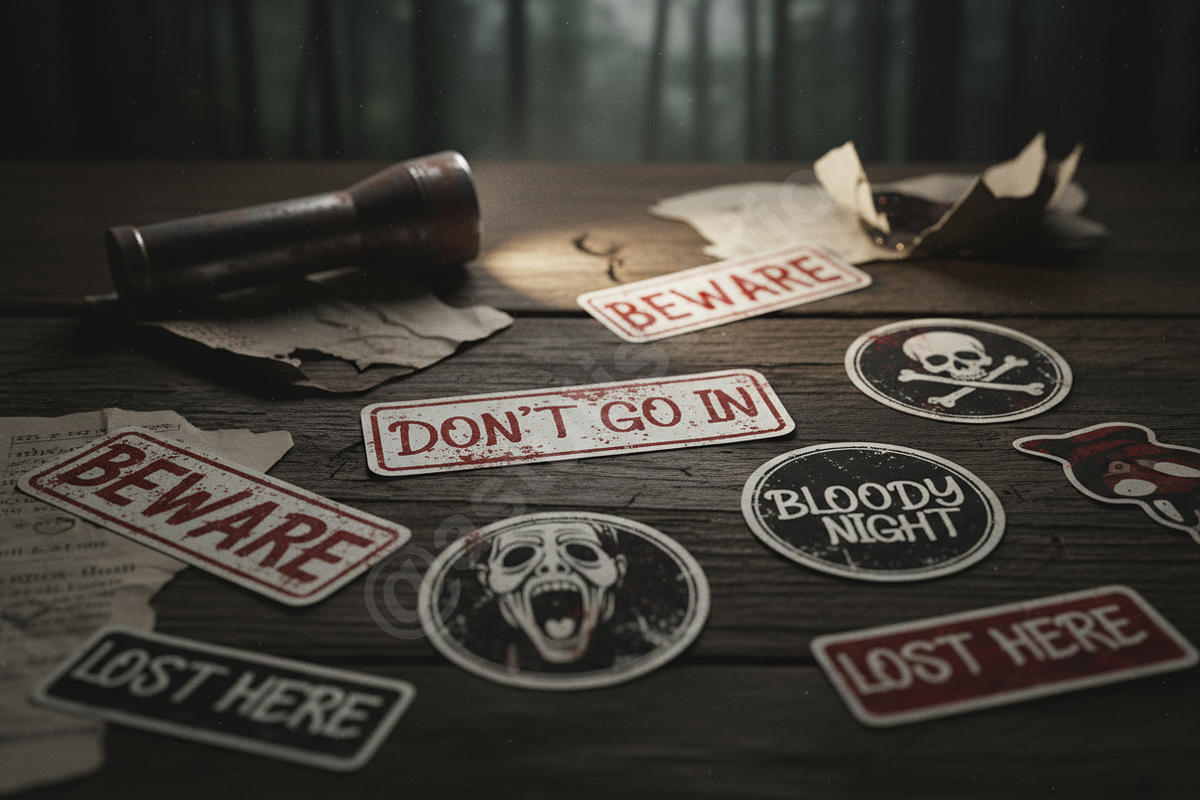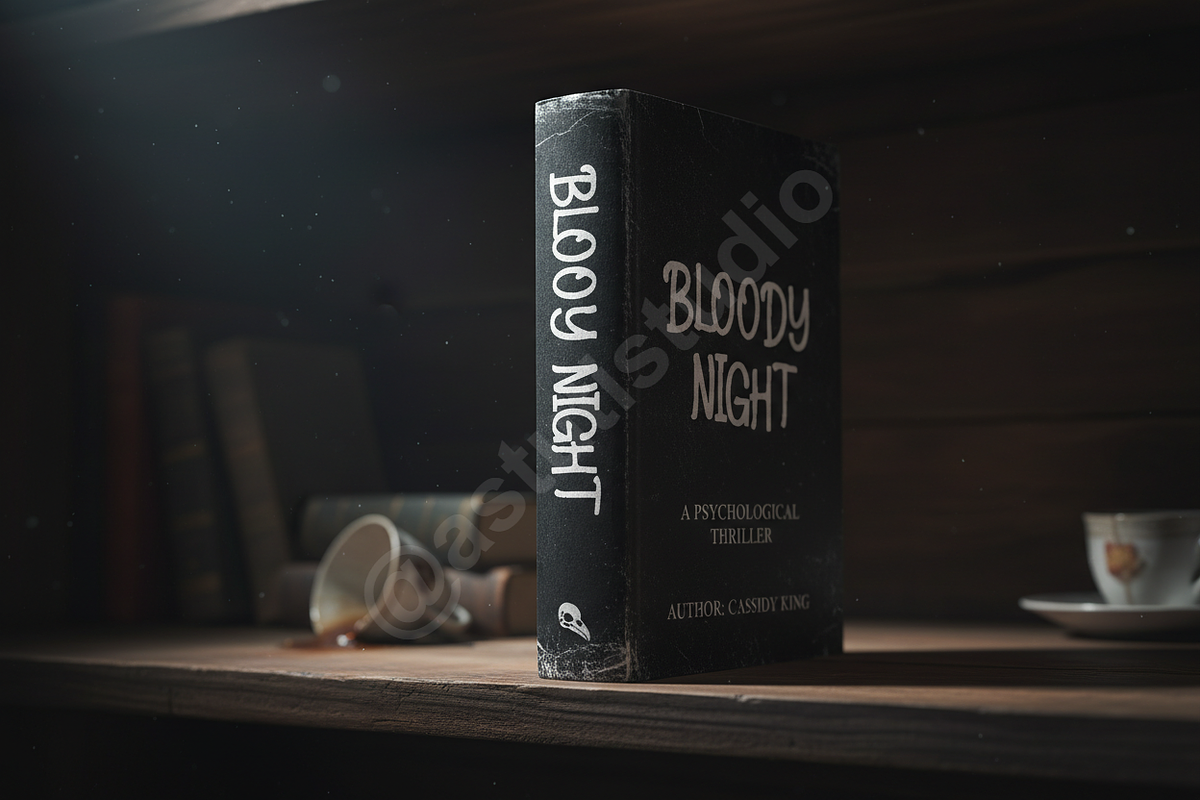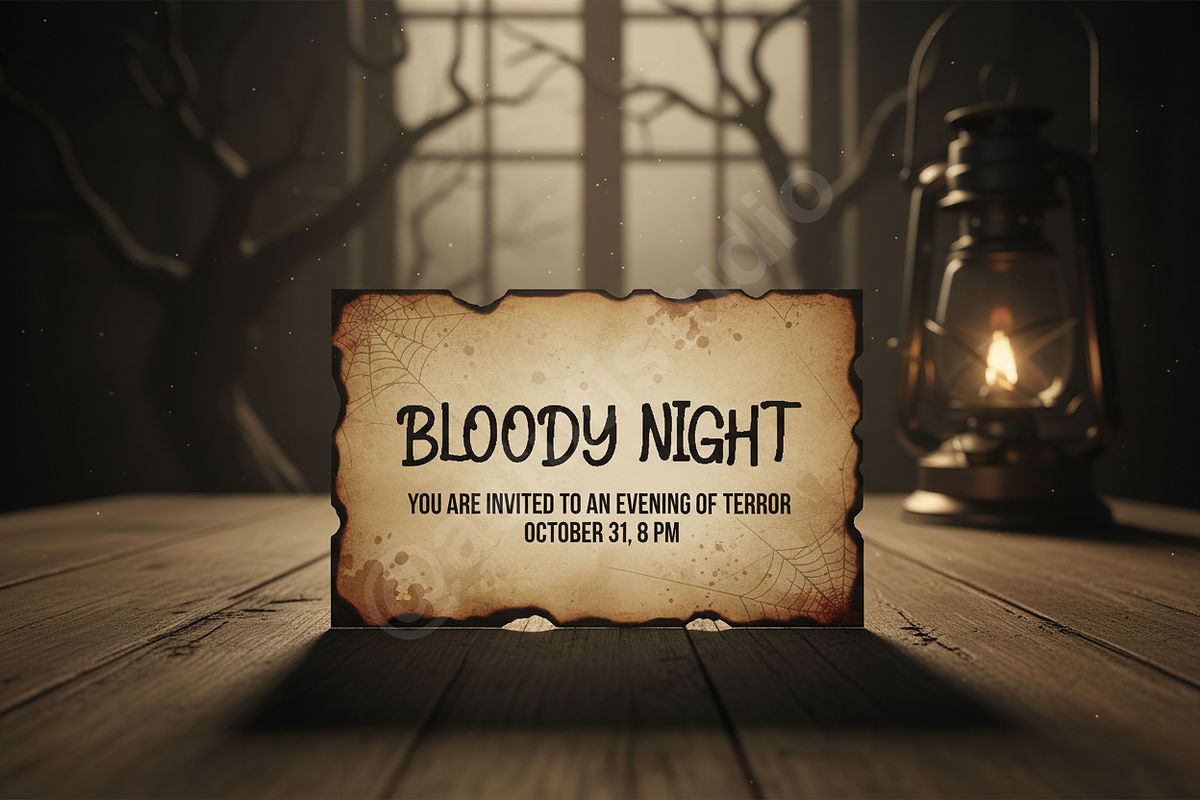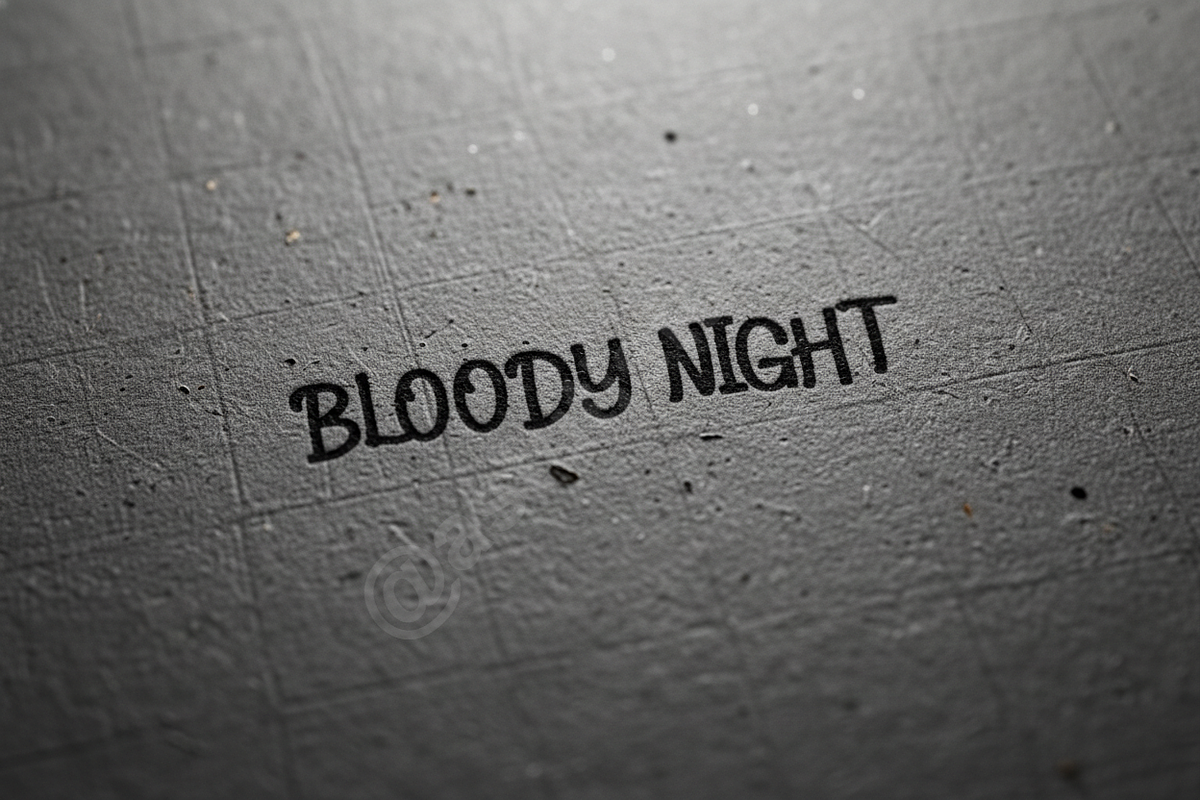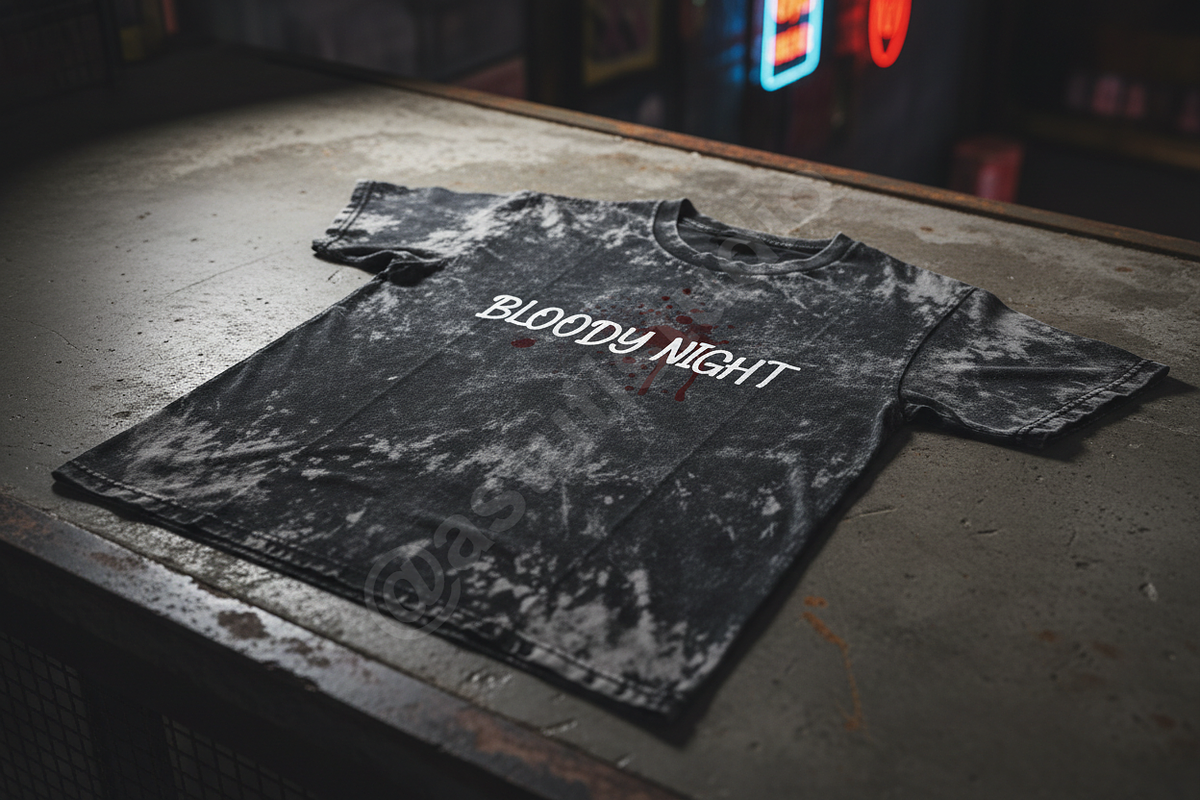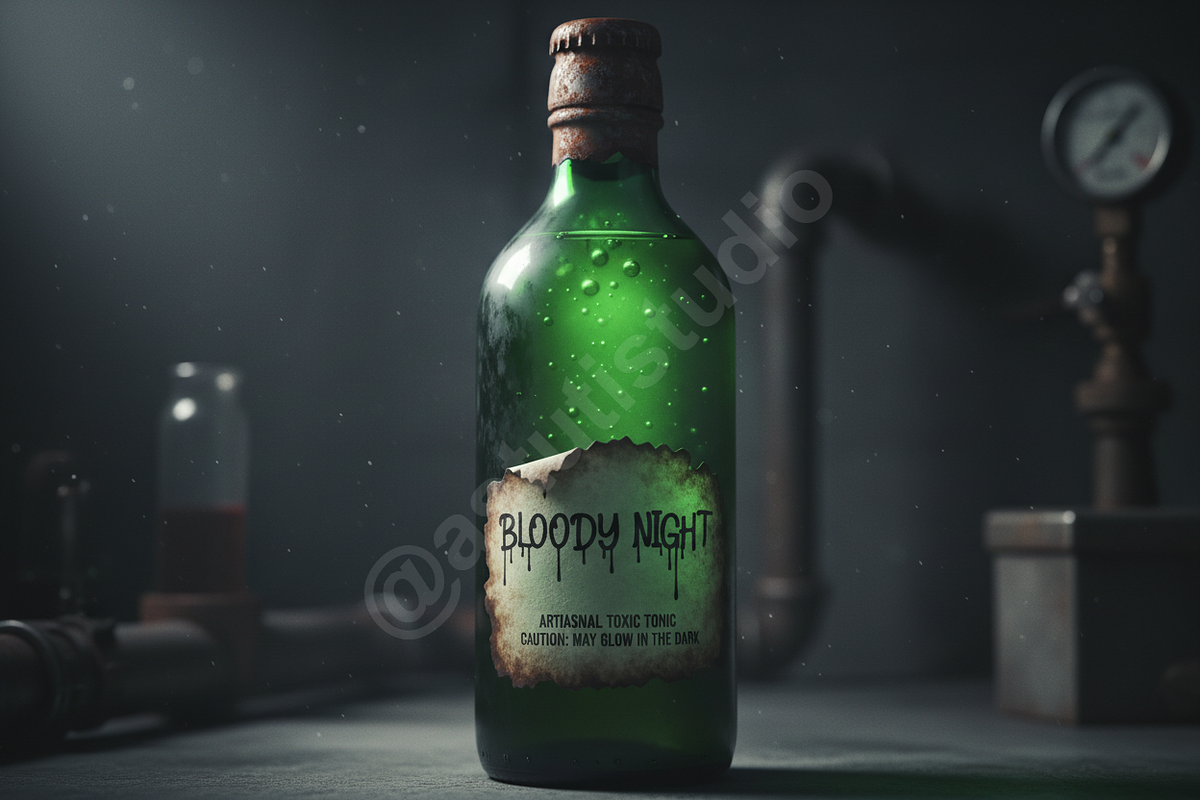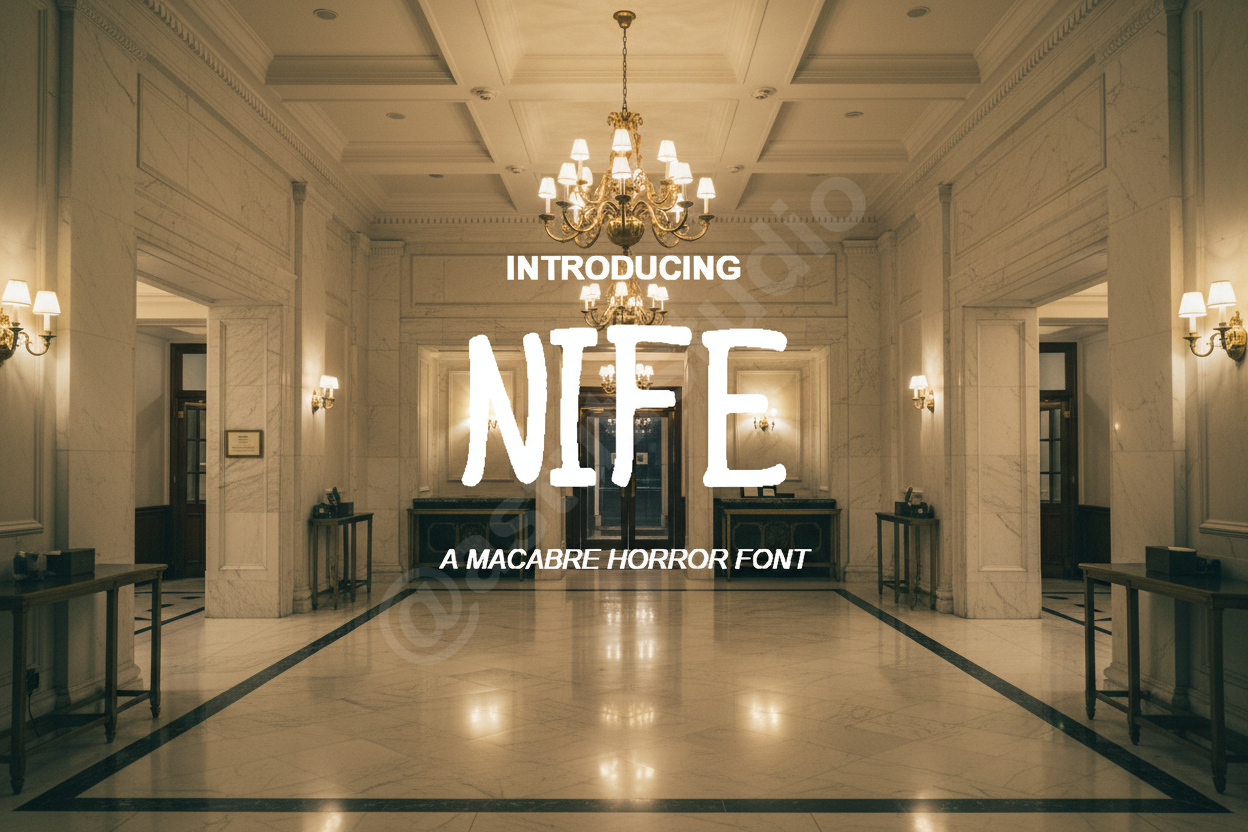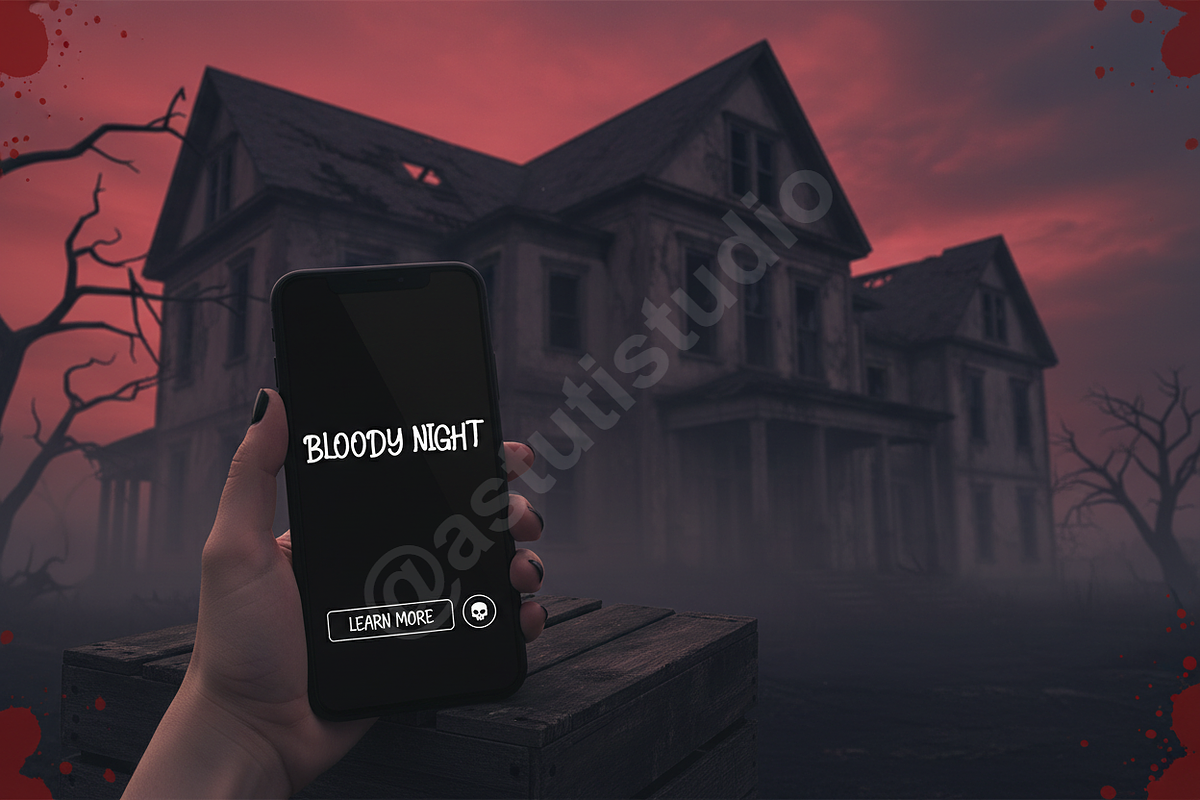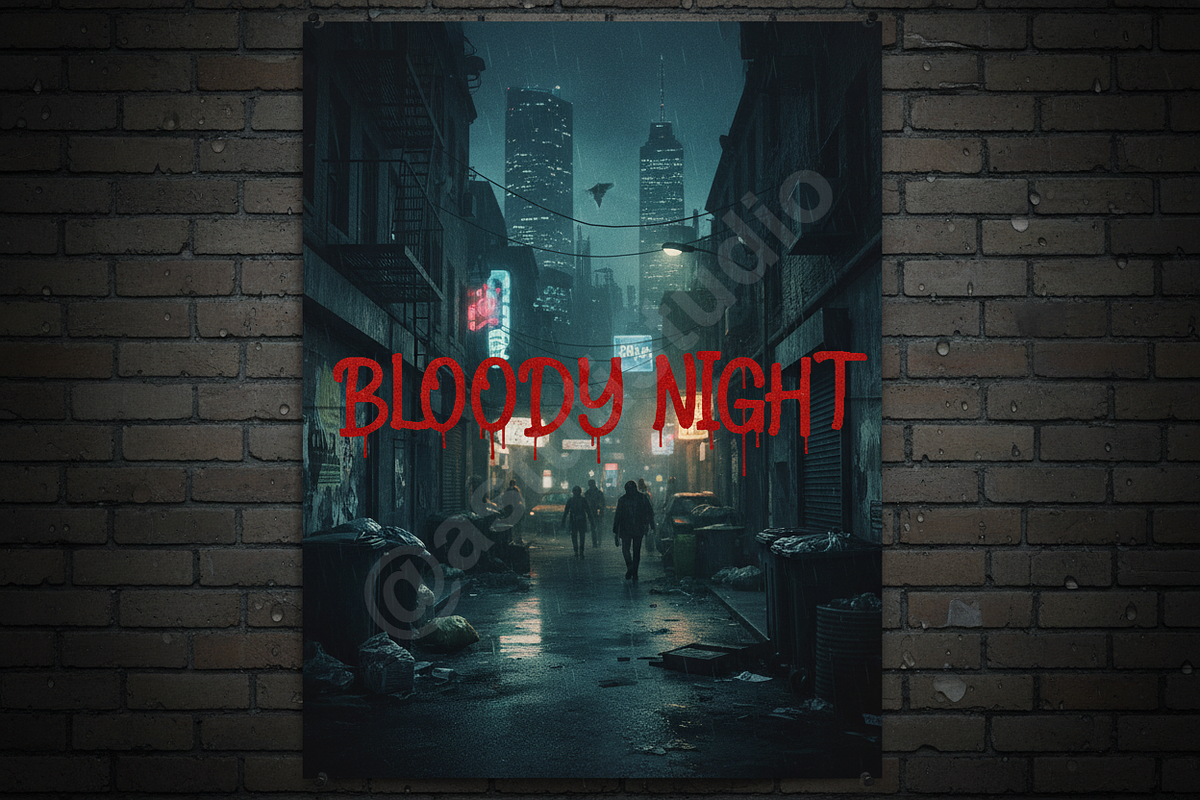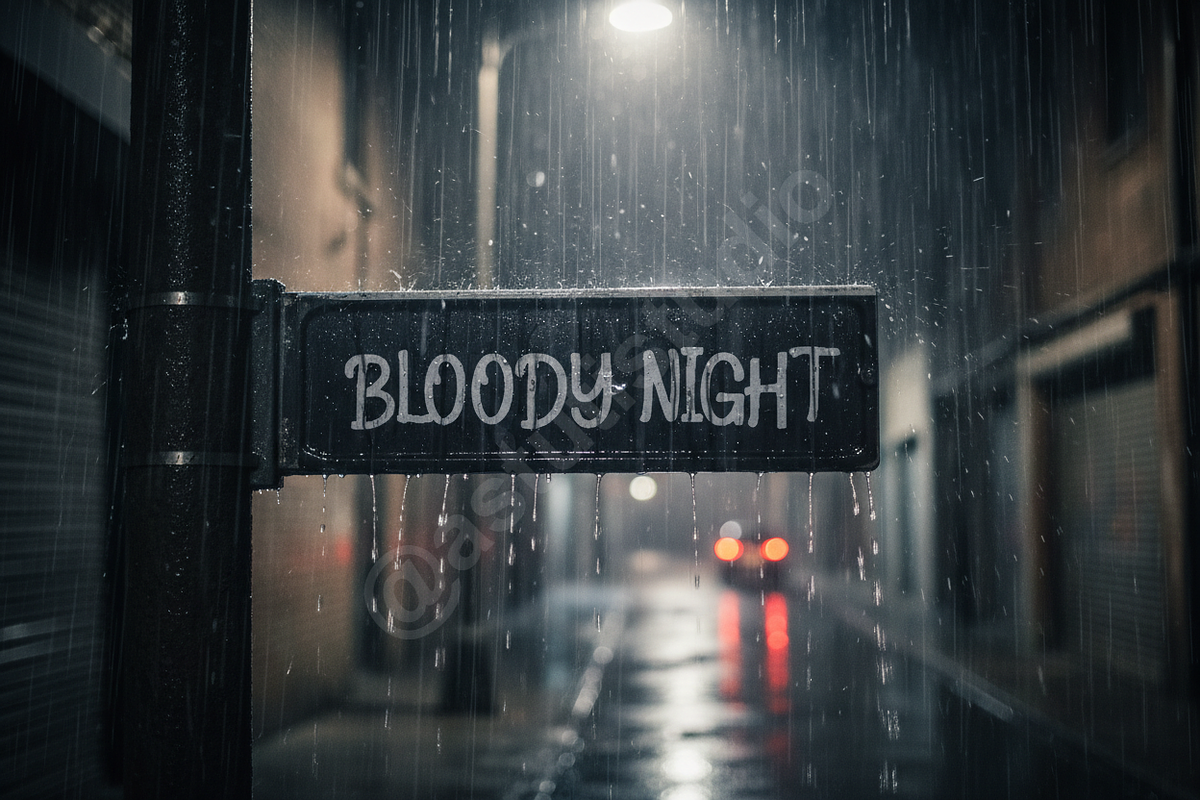
Nife - Sophisticated Serif Typeface
Nife is a refined serif typeface designed for projects that demand timeless elegance and contemporary precision. Characterized by sharp terminals and graceful curves, Nife brings an air of luxury to every creative endeavor. It is meticulously crafted to serve as a versatile tool for high-end branding, minimalist editorial layouts, and elevated social media content. Whether you are designing a boutique logo or a fashion magazine spread, Nife provides the perfect balance of personality and professional legibility.
Main Features:
- Sleek and modern serif construction
- Elegant ligatures and stylistic alternates
- Comprehensive multilingual support
- Precision kerning for professional results
- Optimized for high-resolution print and digital displays